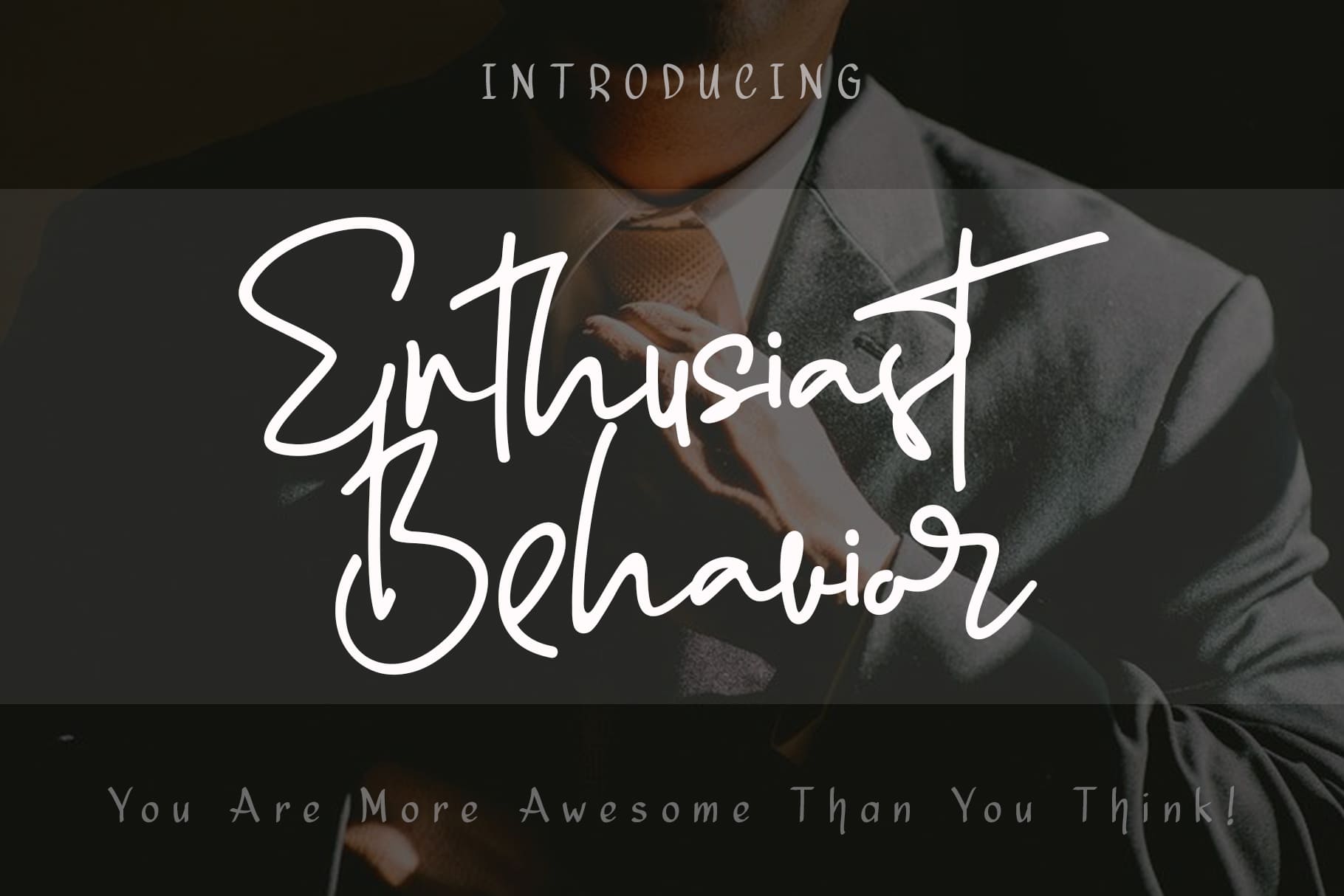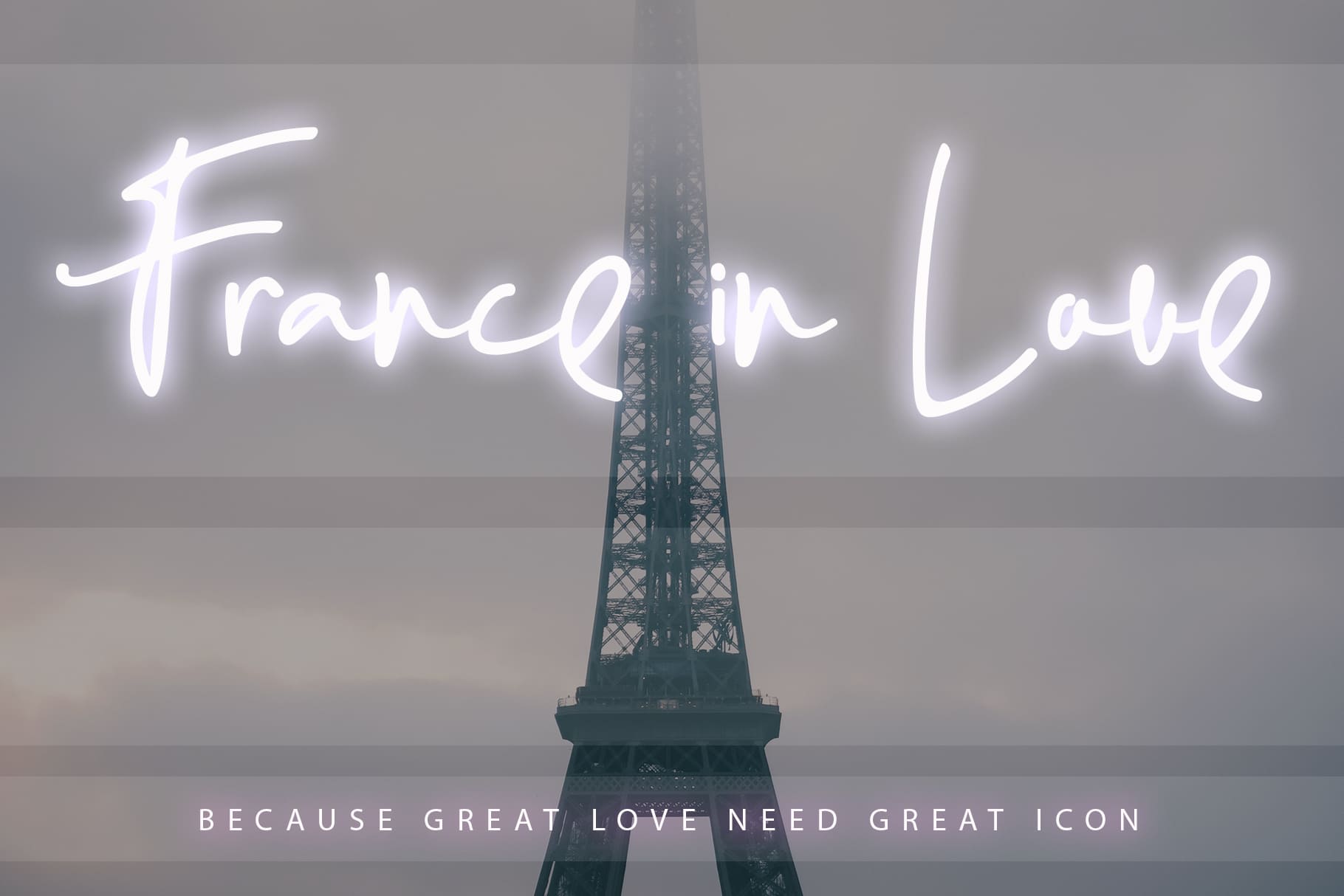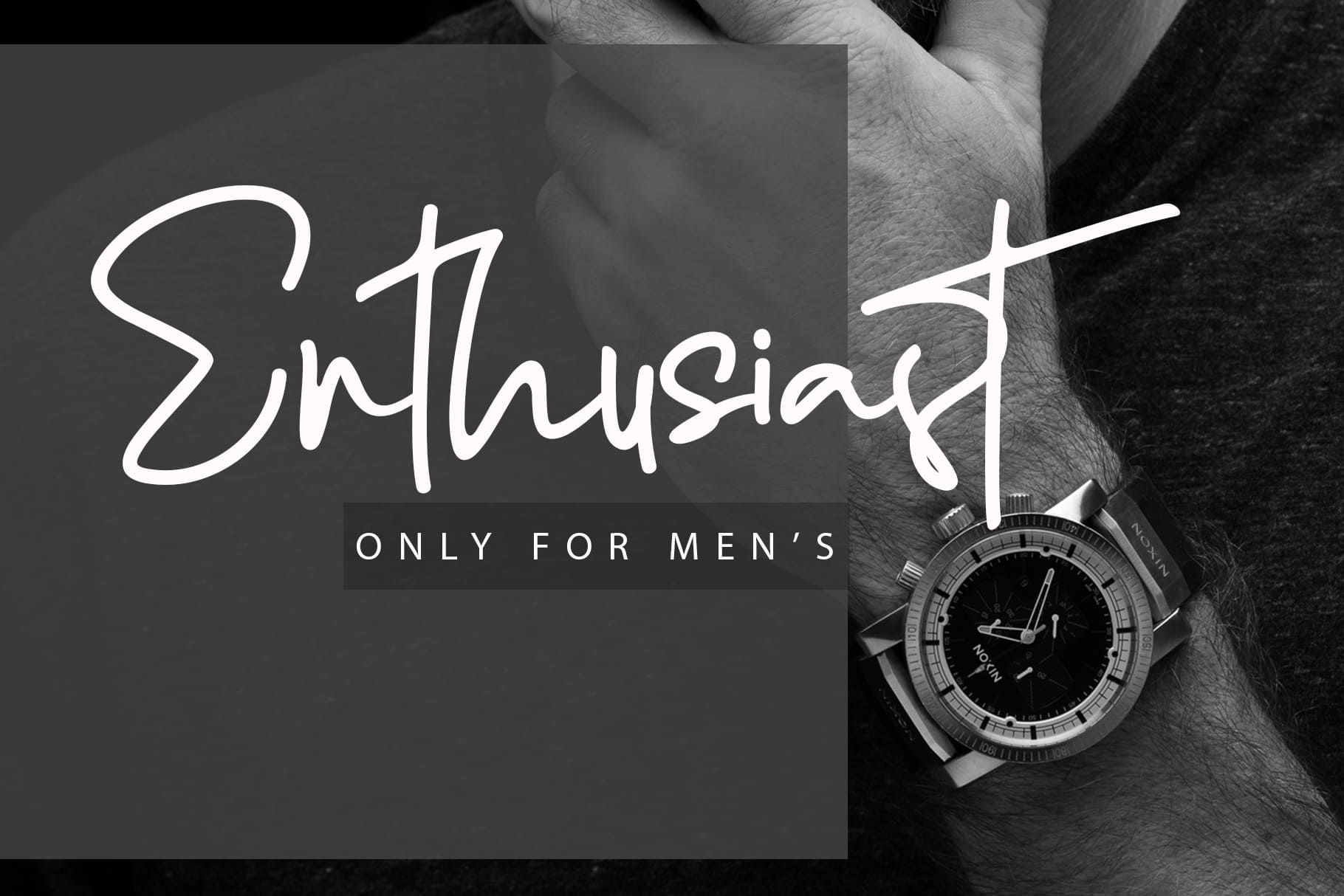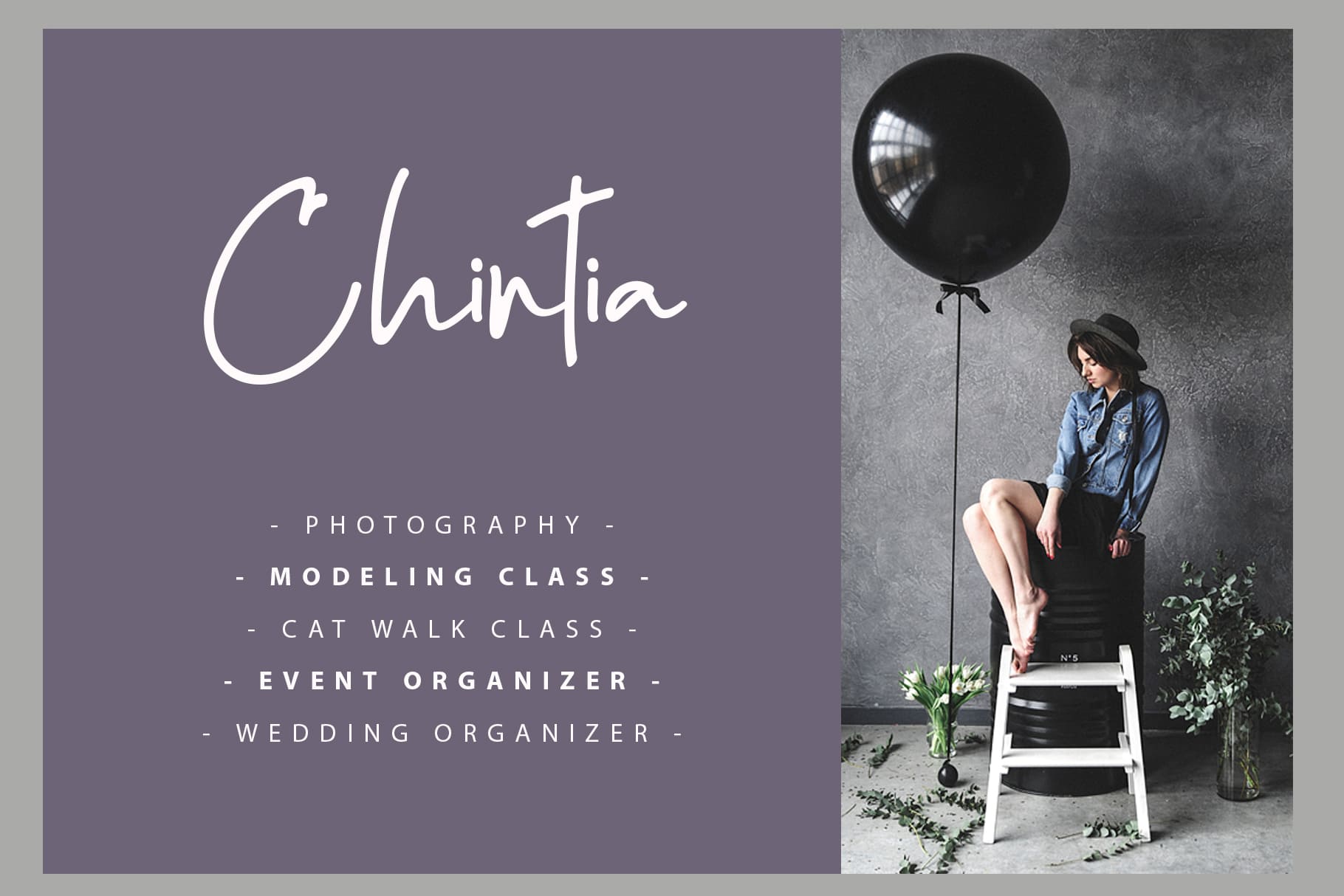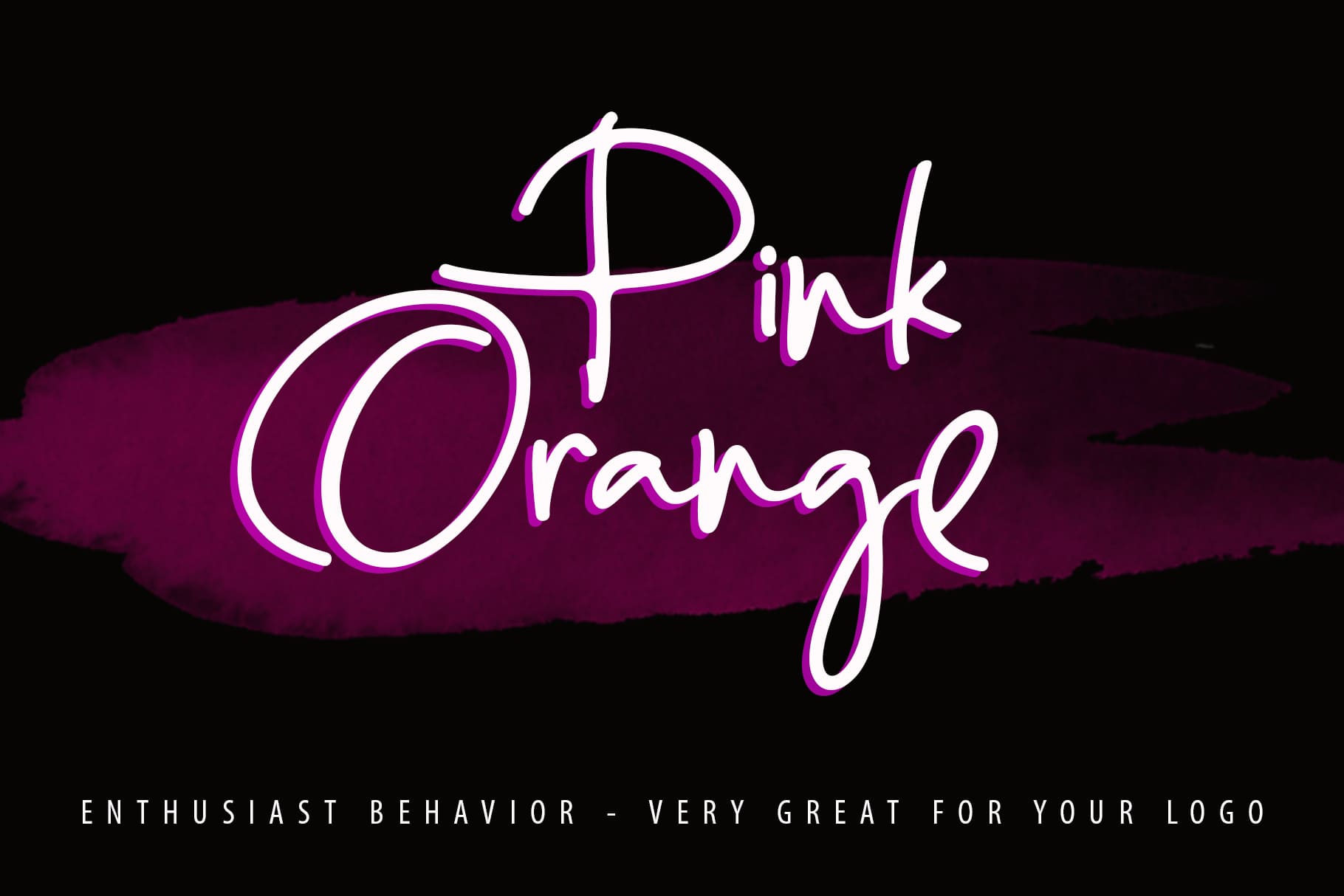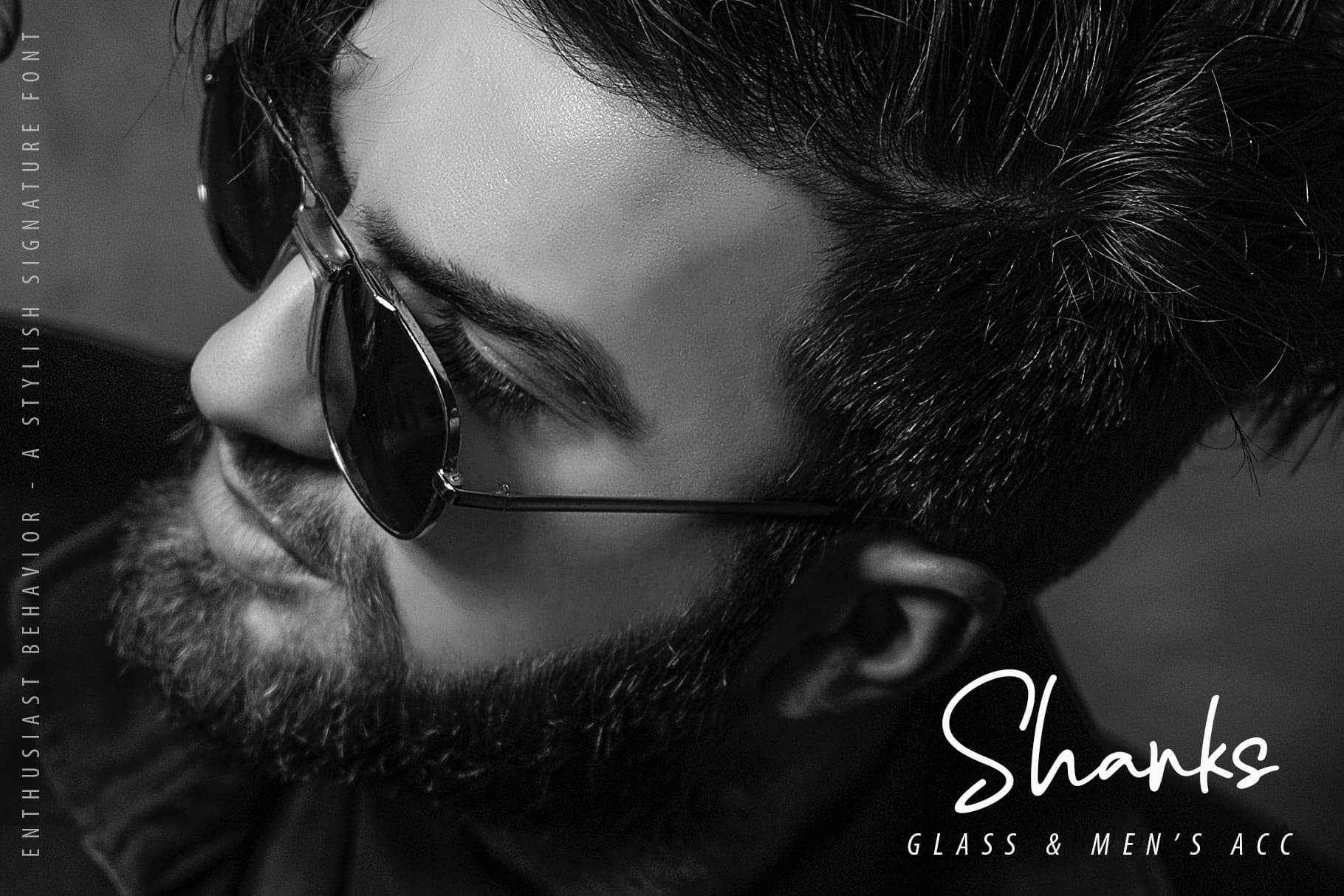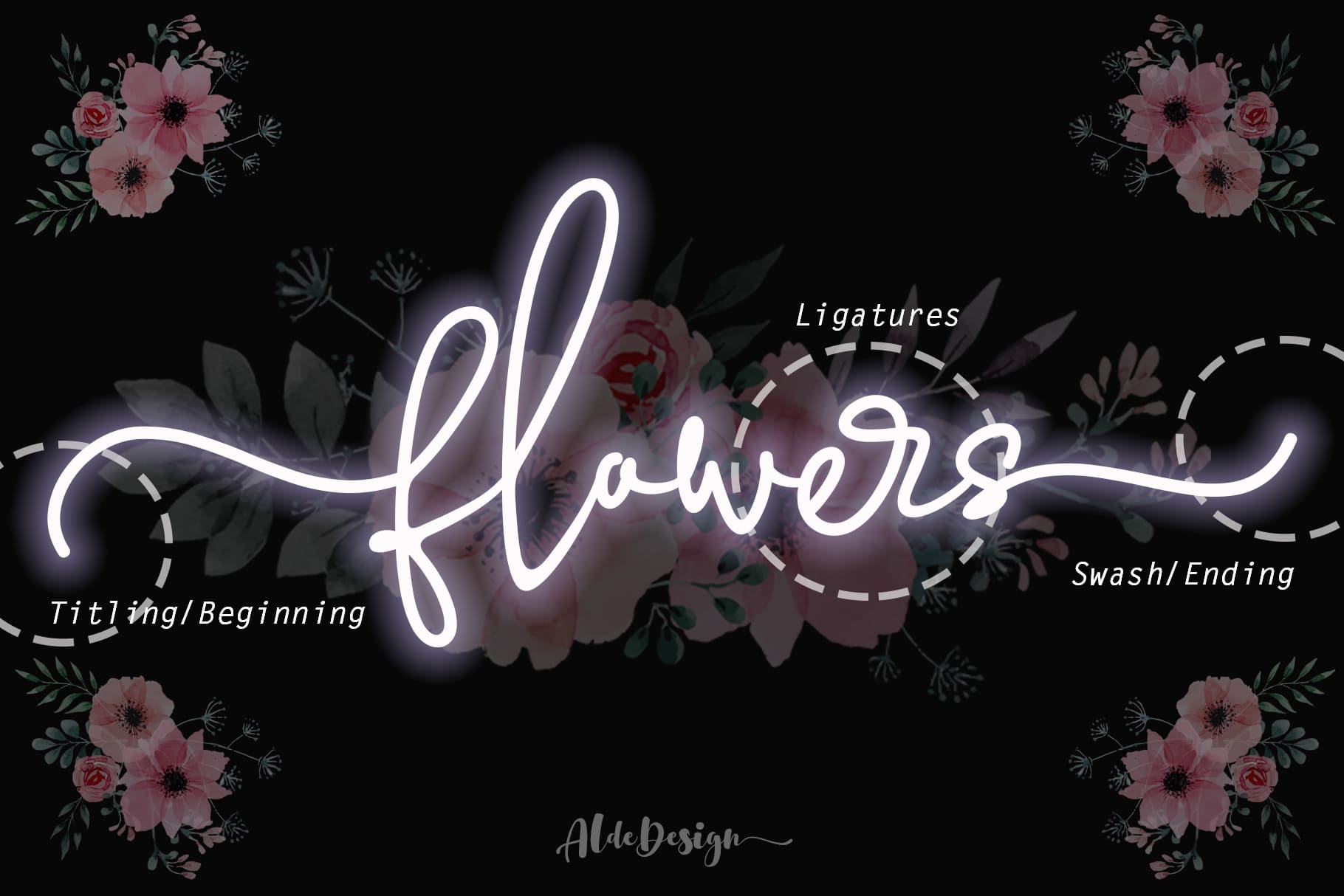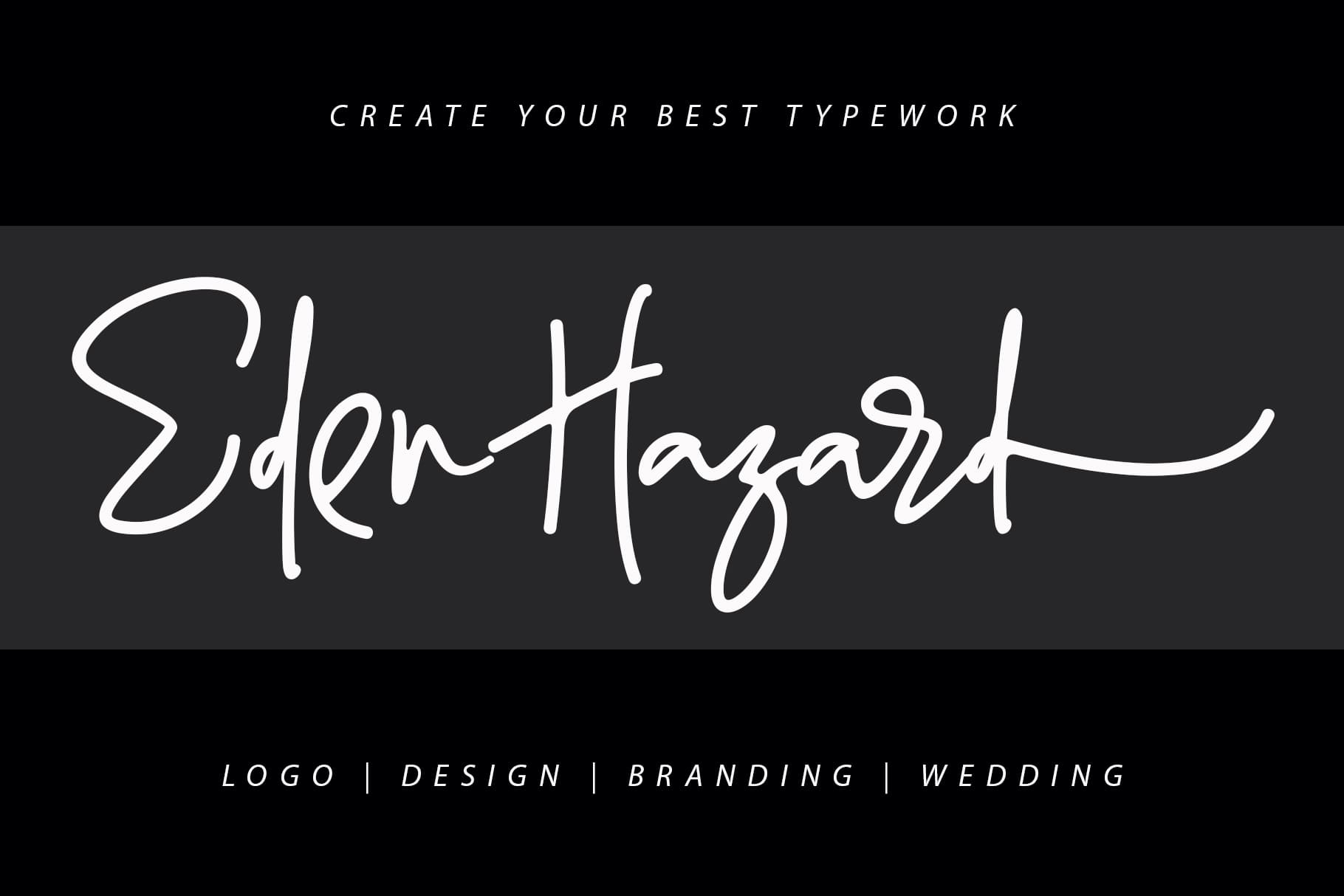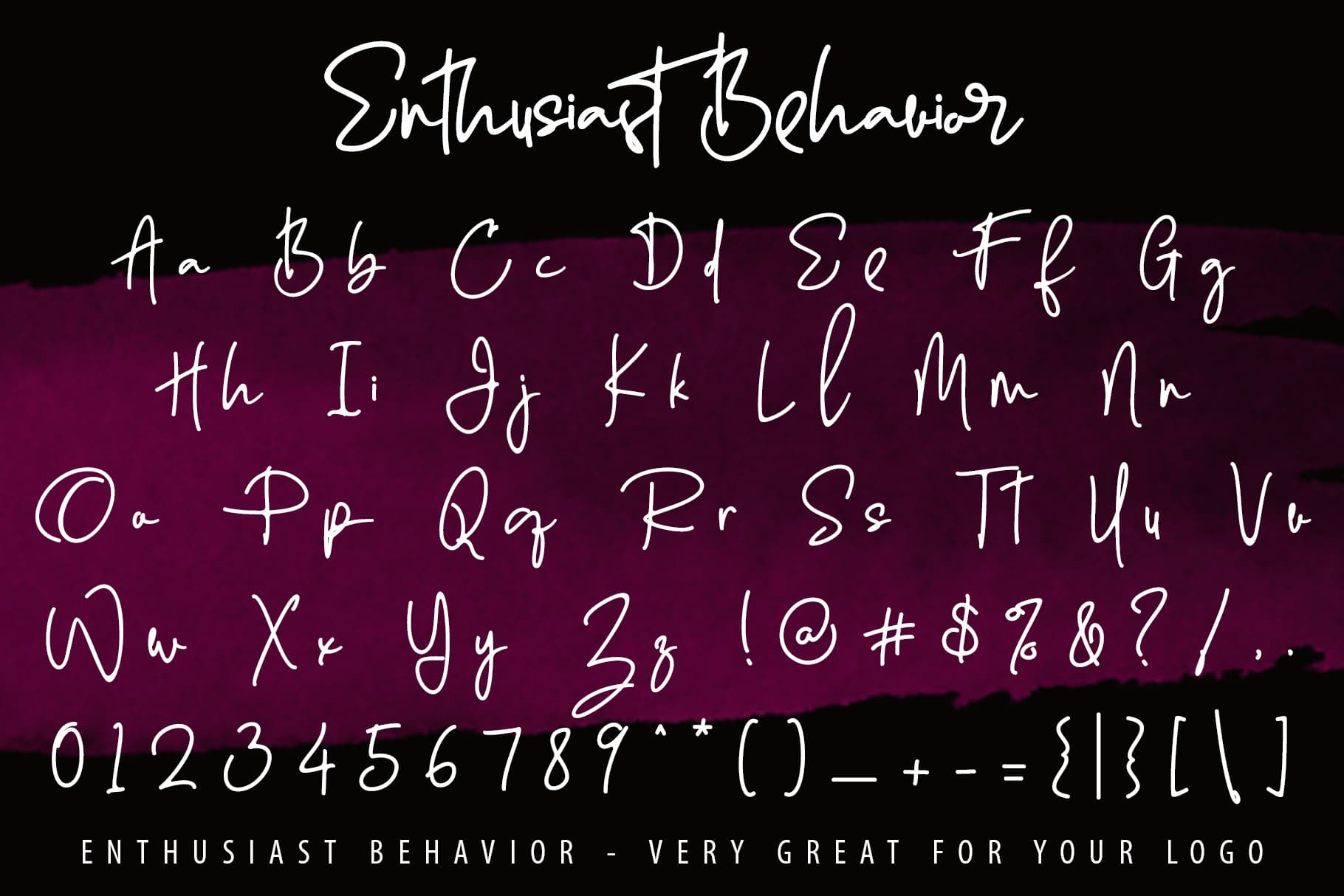
Enthusiast Behavior (1 font)
From AldeDesign
It can be used for watermarks, photography, signatures, logos, album covers, business cards, quotes, and more.